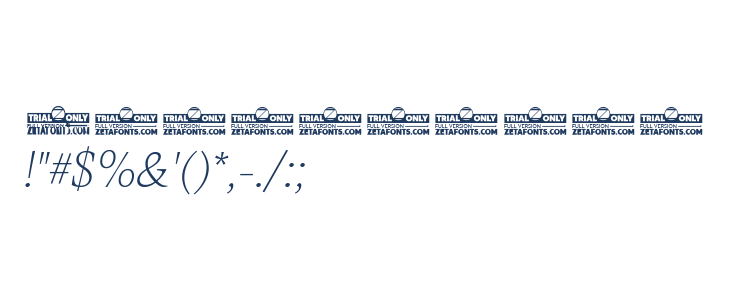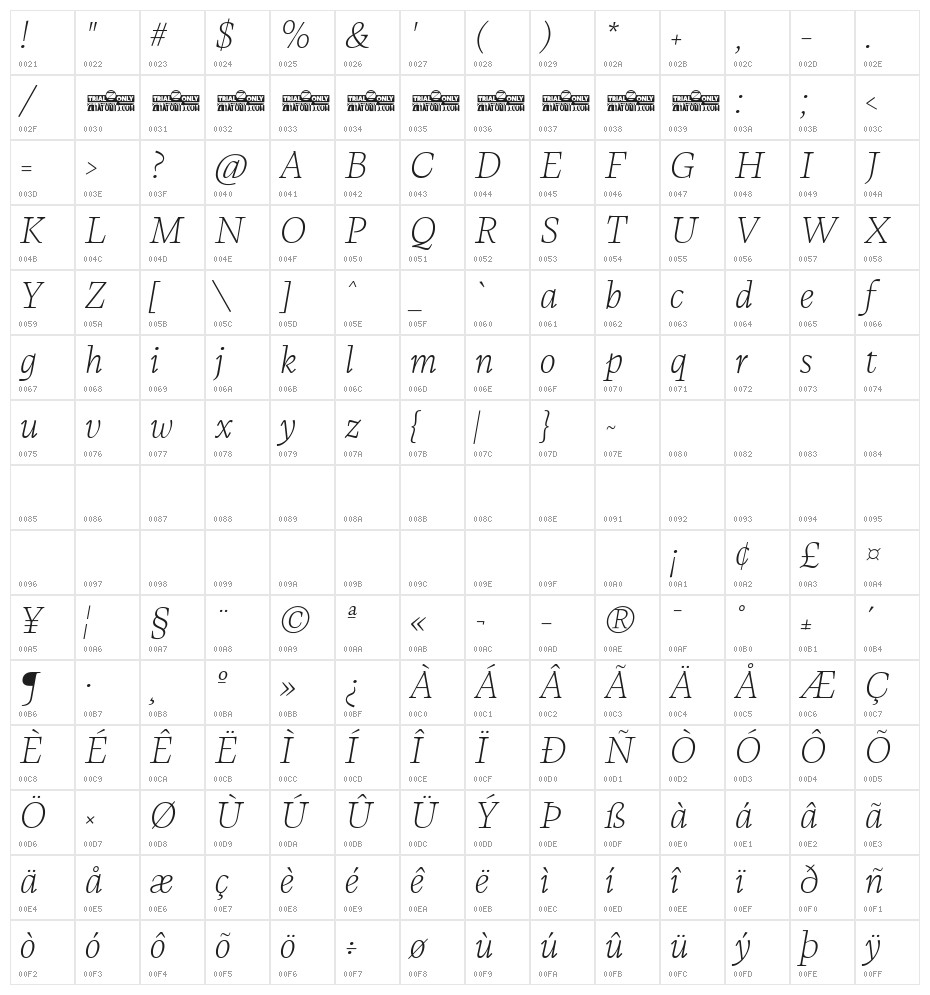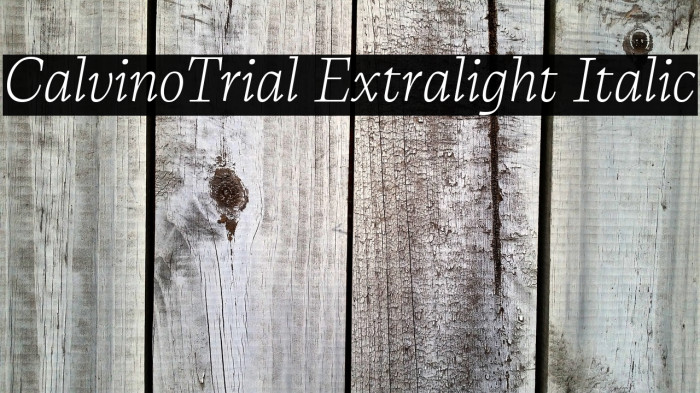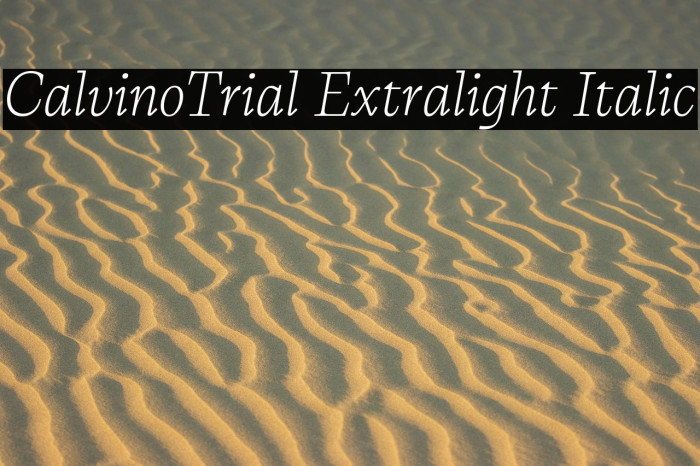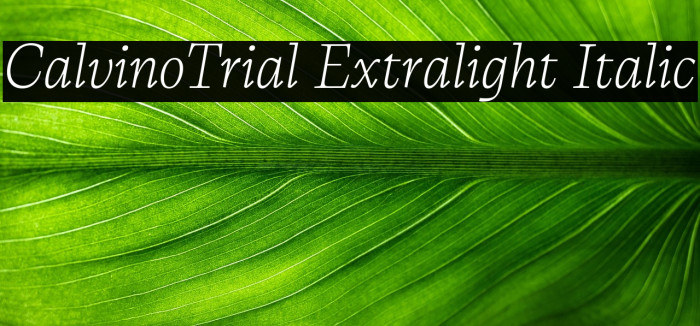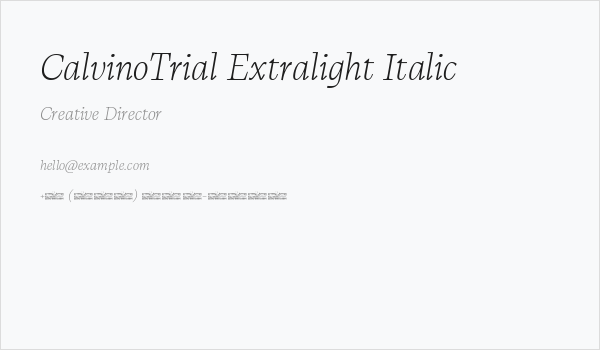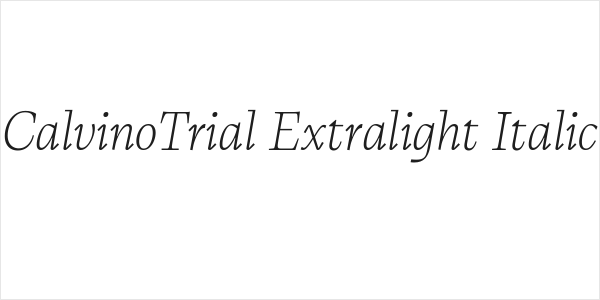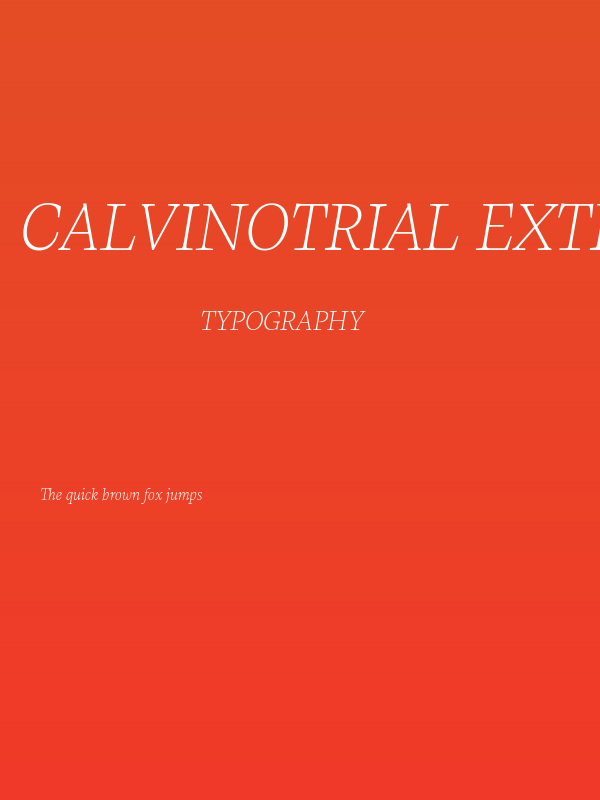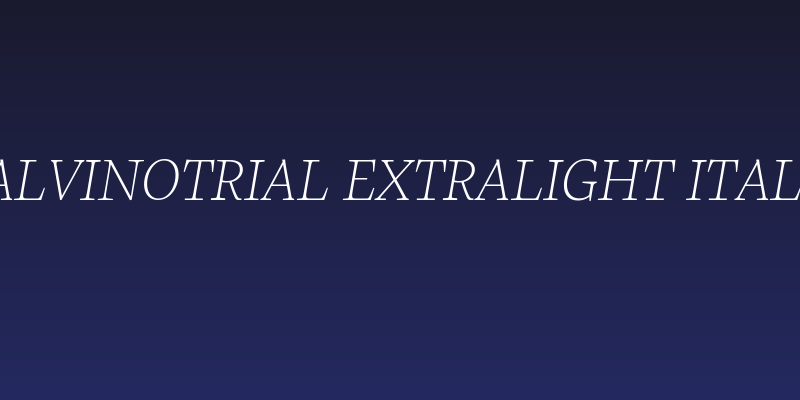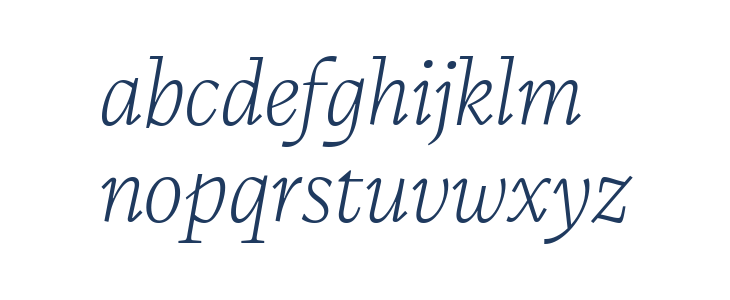
CalvinoTrial Extralight Italic Font
CalvinoTrial Extralight Italic Description
This typeface exudes elegance and sophistication with its extra-light weight and italic style. The characters are gracefully elongated, featuring smooth curves and refined serifs that add a touch of classic charm. The font maintains a consistent slant, enhancing its fluidity and readability. Its delicate strokes and airy appearance make it ideal for projects that require a subtle yet stylish touch. The spacing between characters is thoughtfully designed to ensure clarity and legibility, even at smaller sizes. This font is perfect for conveying a sense of elegance and refinement.